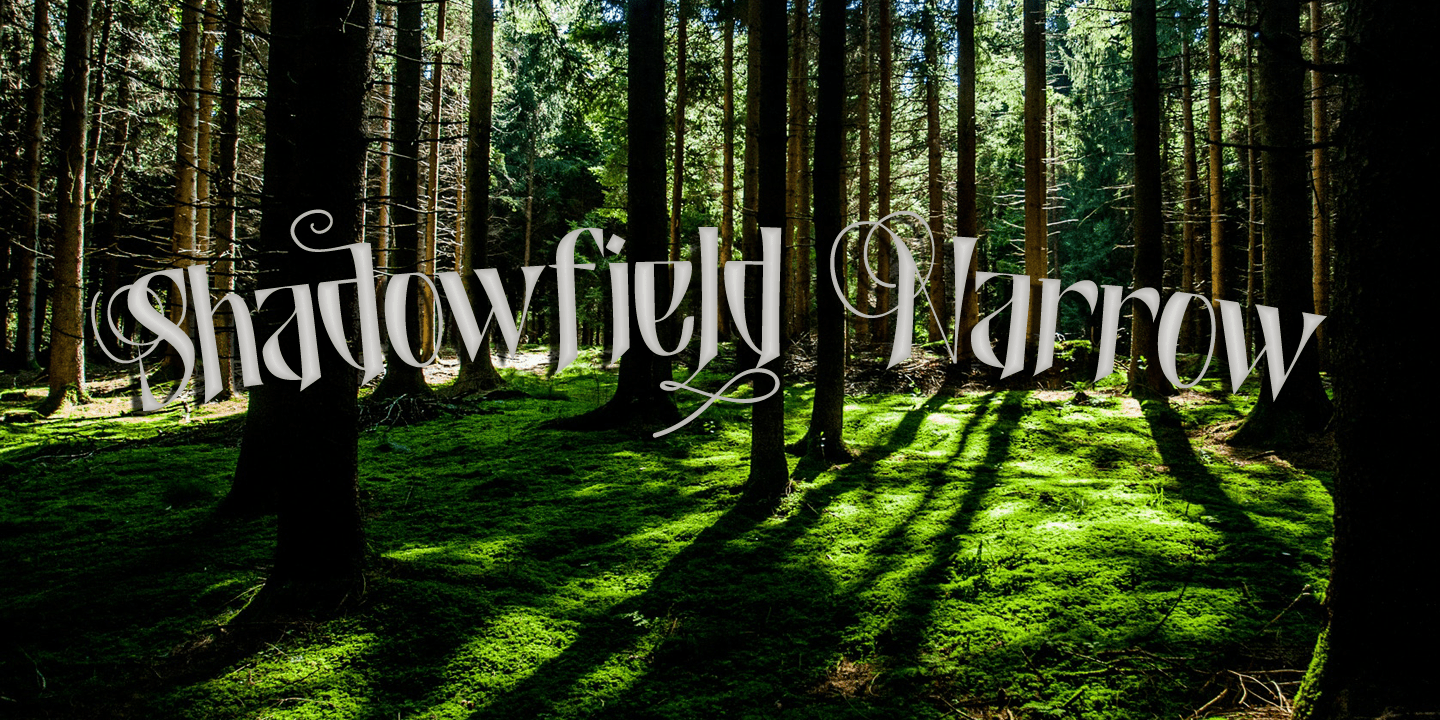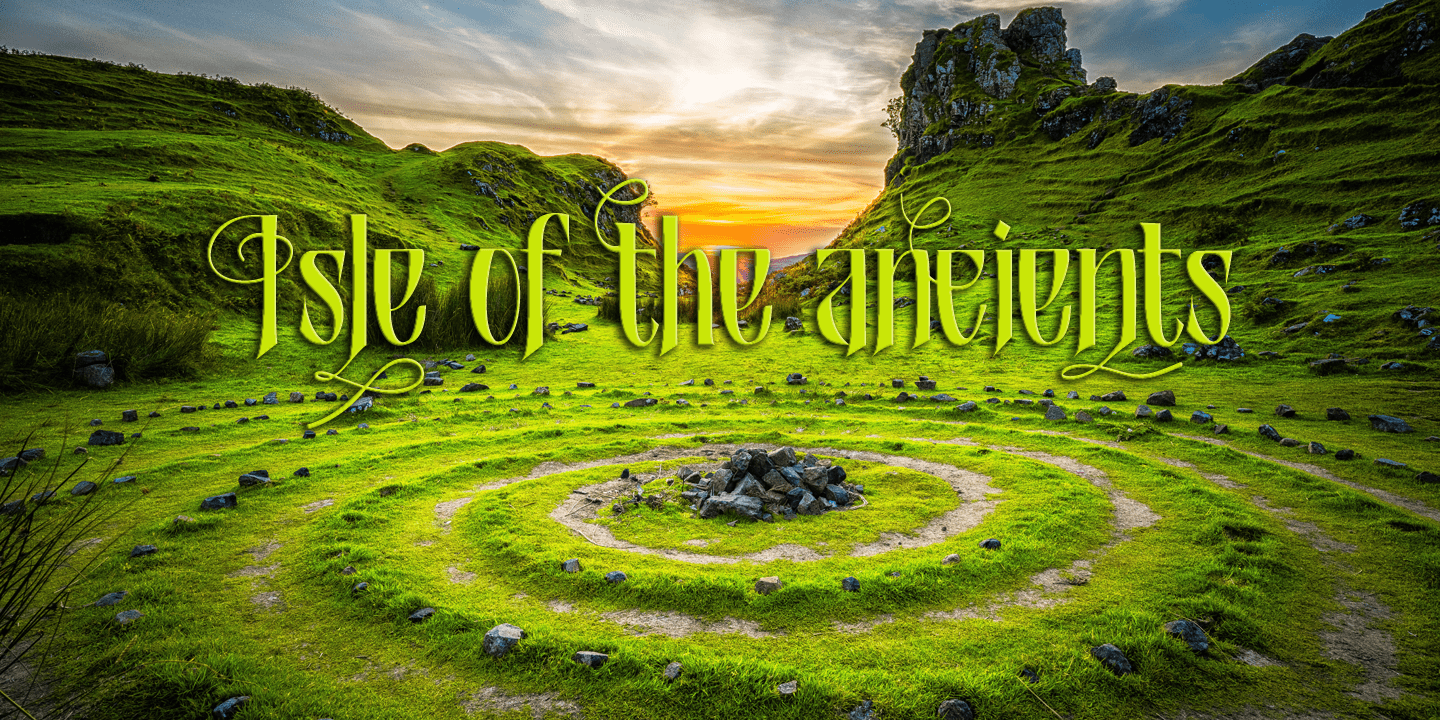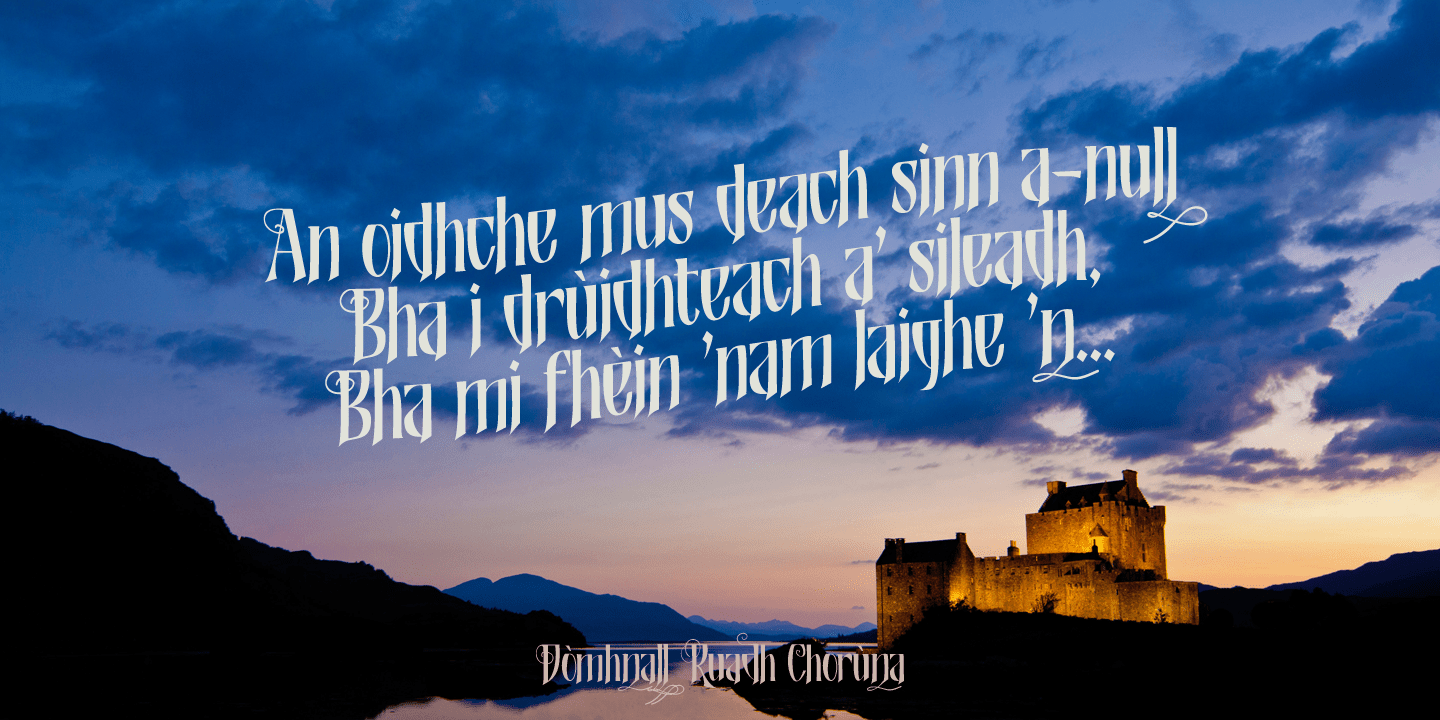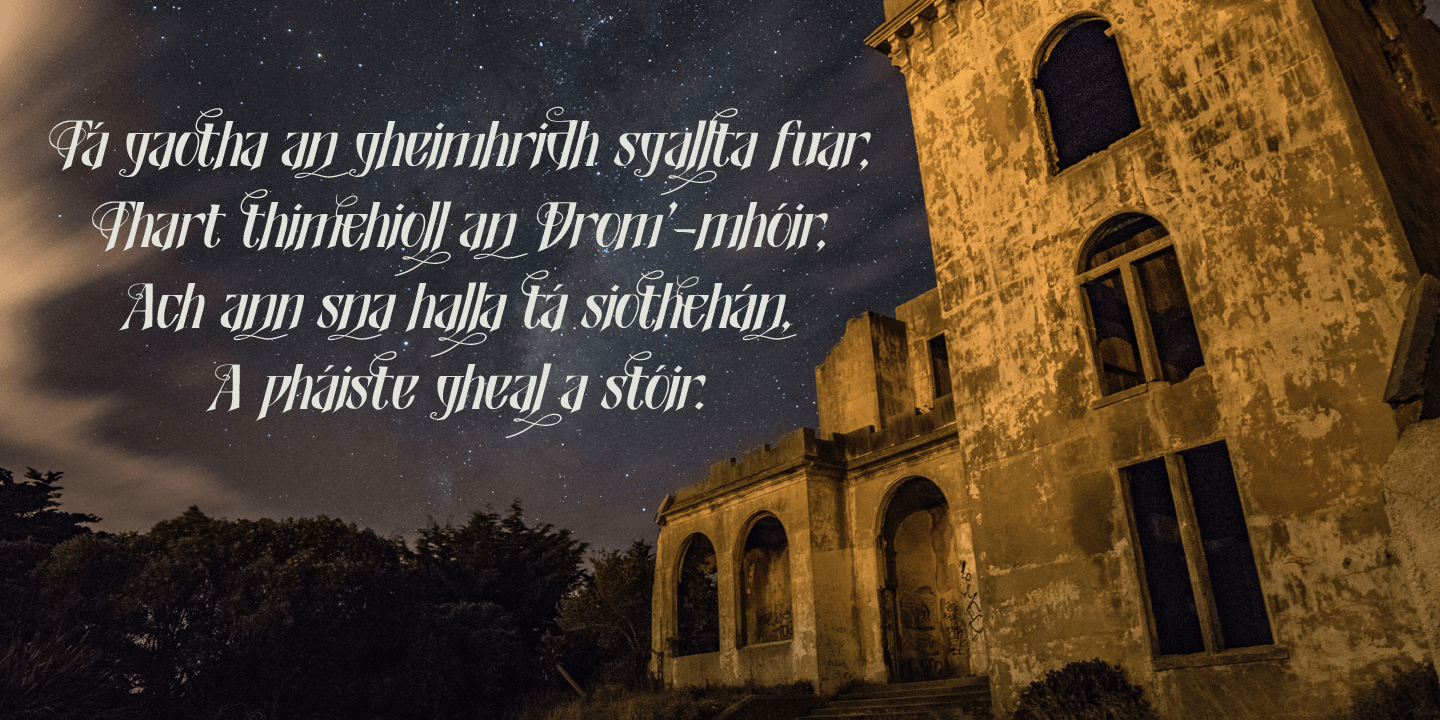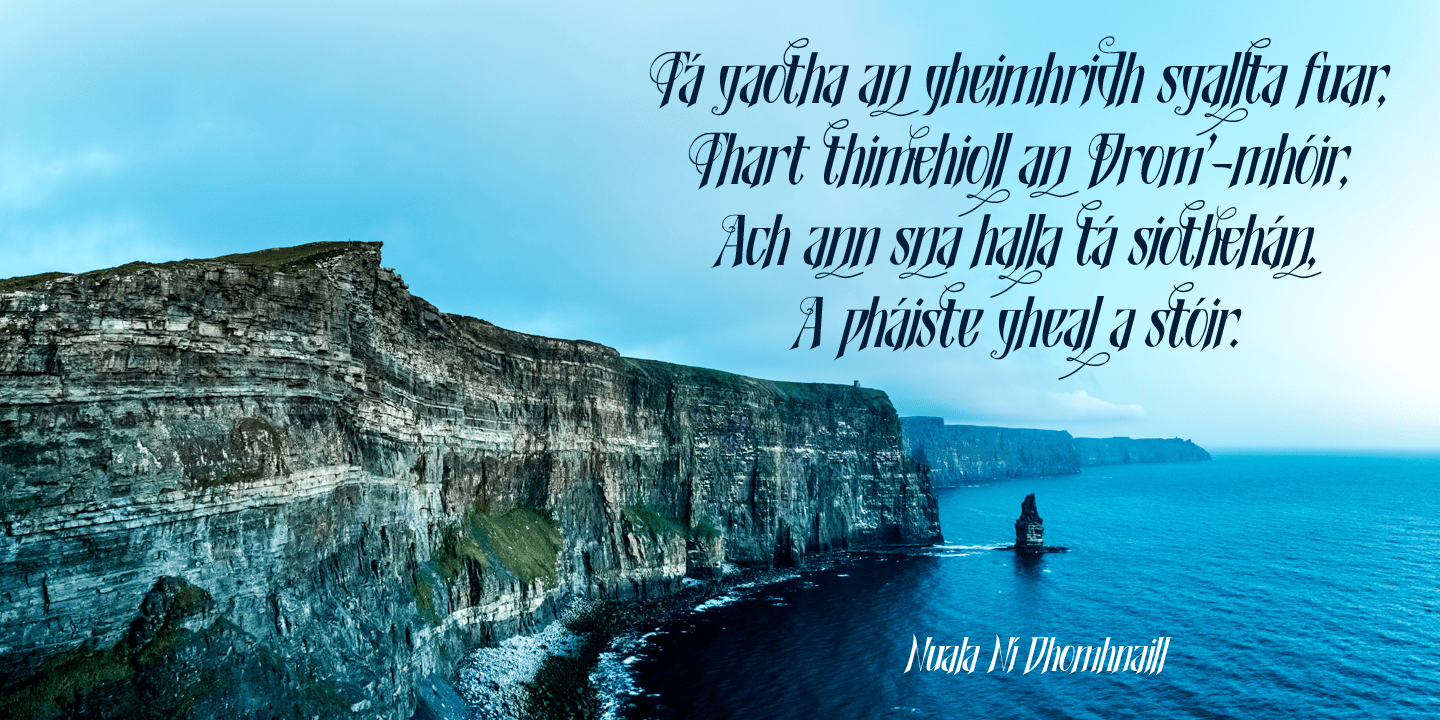
About Shadowfield
Shadowfield is a fantasy font which was inspired by the hand lettering on the Spiderwick movie posters (which itself was apparently based on Hand Skript One). Every glyph was drawn by hand, using a gel pen on 160 grams paper. Shadowfield will look good…